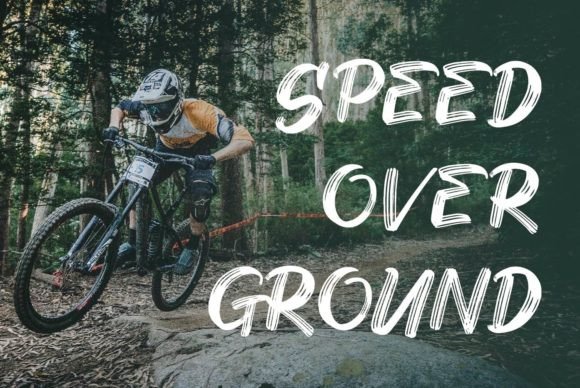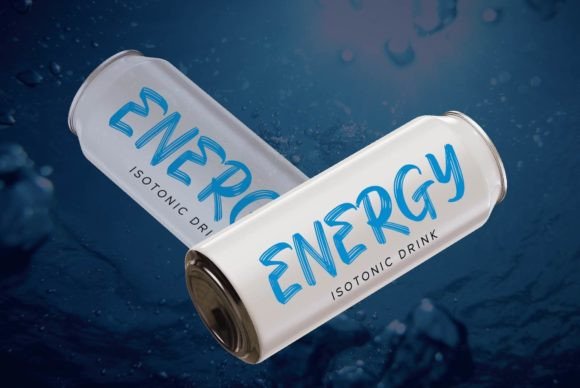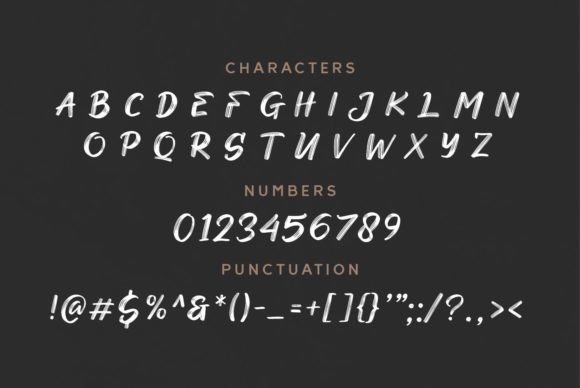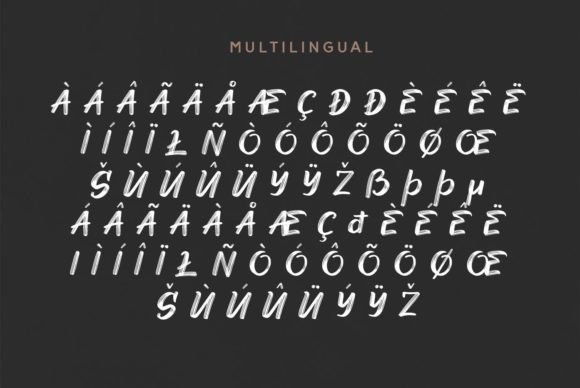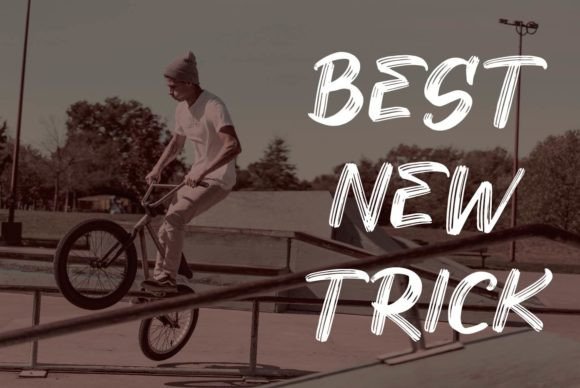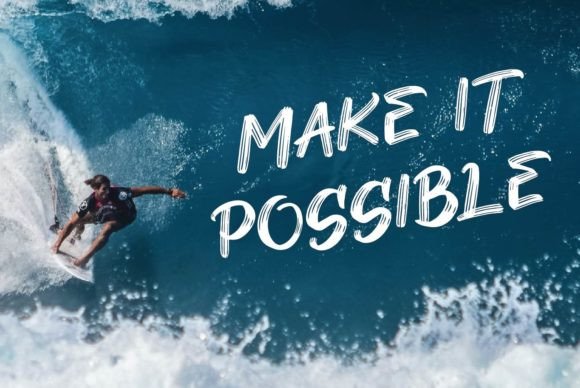
Introducing Greater Teams Font: The Ultimate Brushed Display Font for Modern Designs
Are you tired of using the same old fonts in your designs? Do you want to add a touch of modernity and urban flair to your creative projects? Look no further than Greater Teams Font, a stunning brushed display font that’s sure to take your designs to the next level. In this article, we’ll dive into the world of Greater Teams Font, exploring its features, benefits, and uses, as well as provide tips and inspiration for designers and crafters.
What is Greater Teams Font?
Greater Teams Font is a brushed display font that exudes a cool, modern, and urban vibe. Its unique, hand-crafted design makes it perfect for adding a personal touch to your designs. With its bold and edgy look, Greater Teams Font is ideal for use in a variety of creative projects, from posters and flyers to logos and branding materials.
Key Features of Greater Teams Font
So, what makes Greater Teams Font so special? Here are some of its key features:
- Brushed texture: Greater Teams Font features a unique brushed texture that gives it a rough, hand-crafted look.
- Modern and urban feel: The font’s sleek and edgy design makes it perfect for modern and urban-inspired designs.
- Highly legible: Despite its bold and distressed look, Greater Teams Font is highly legible, making it suitable for use in a variety of applications.
- Versatile: Greater Teams Font can be used in a range of creative projects, from print materials to digital designs.
Benefits of Using Greater Teams Font
So, why should you choose Greater Teams Font for your designs? Here are some of the benefits of using this amazing font:
- Adds a touch of modernity: Greater Teams Font can instantly update your designs and give them a modern, urban feel.
- Stand out from the crowd: With its unique brushed texture and bold design, Greater Teams Font can help your designs stand out from the crowd.
- High-quality: Greater Teams Font is a high-quality font that’s designed to deliver exceptional results.
Using Greater Teams Font in Your Designs
So, how can you use Greater Teams Font in your designs? Here are some ideas to get you started:
- Posters and flyers: Use Greater Teams Font to create eye-catching posters and flyers that grab attention.
- Logos and branding: Greater Teams Font is perfect for creating modern and urban-inspired logos and branding materials.
- Social media graphics: Use Greater Teams Font to create stunning social media graphics that stand out from the crowd.
- Web designs: Greater Teams Font can be used in web designs to add a touch of modernity and urban flair.
Tips for Working with Greater Teams Font
Here are some tips for working with Greater Teams Font:
- Experiment with different sizes: Greater Teams Font looks great in a range of sizes, from small to large.
- Play with colors: Try pairing Greater Teams Font with different colors to create unique and eye-catching designs.
- Use it with other fonts: Greater Teams Font can be paired with other fonts to create interesting and dynamic designs.